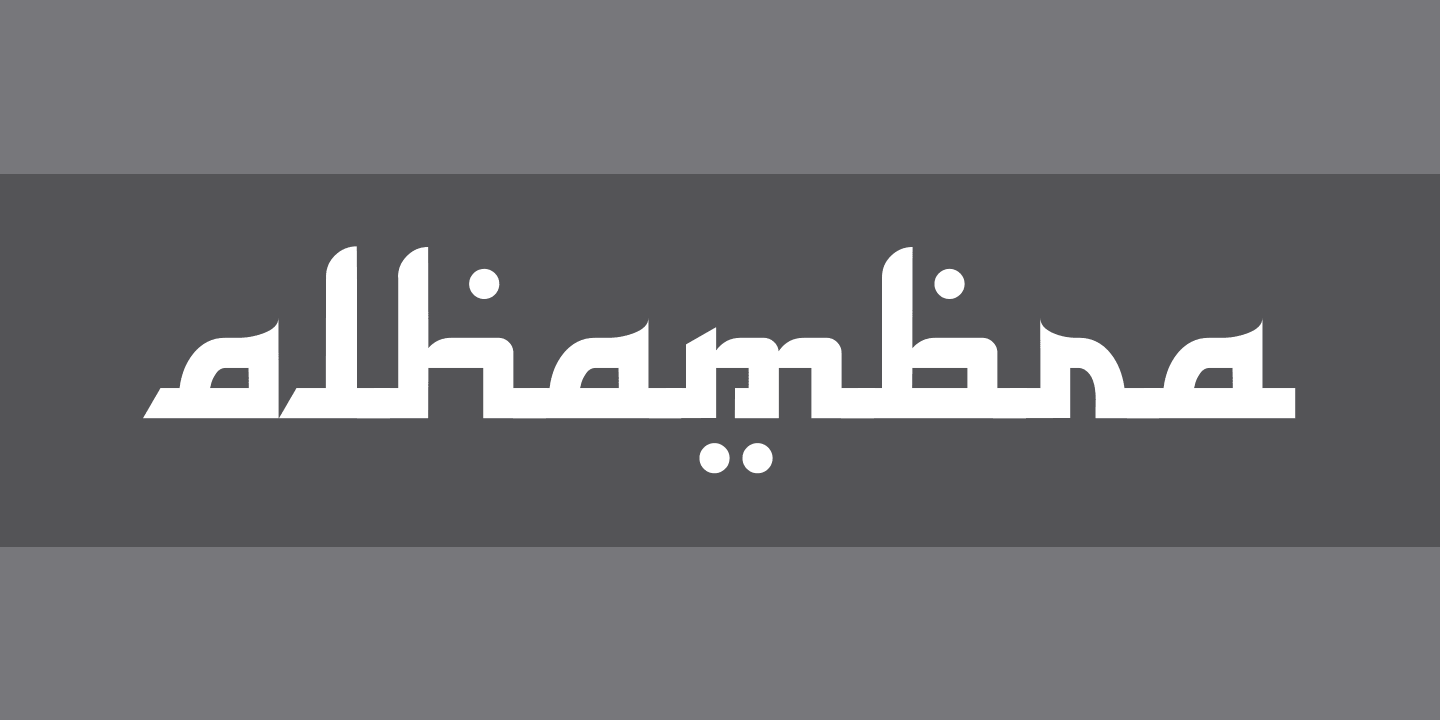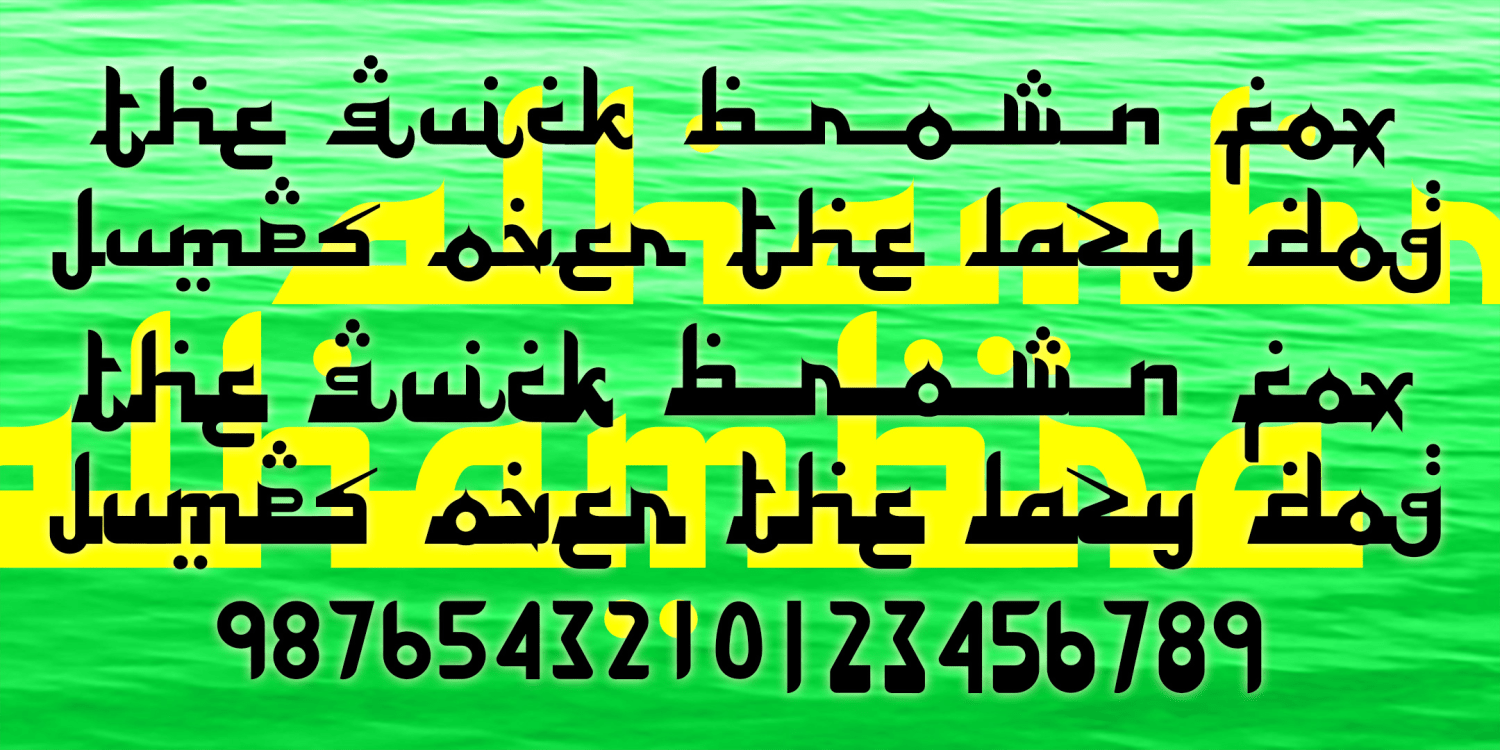
Alhambra
About Alhambra
ALHAMBRA was inspired by Arabic calligraphy in the Kufi style. There are two varieties, Regular and Deep. Each has decorative endcaps at ^ ~ { and } plus a lengthening element at _. (You can see the latter in the words "brown" in the illustration.)…